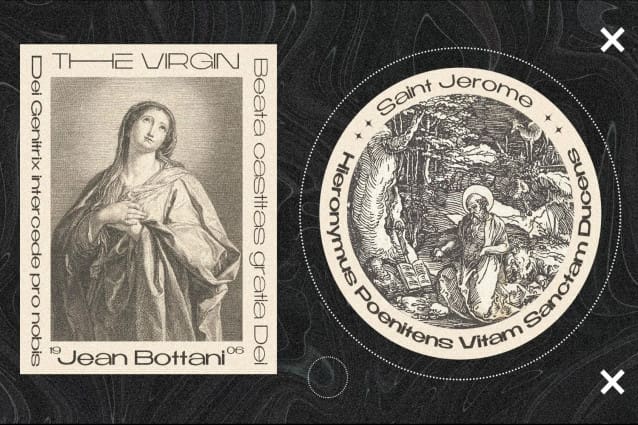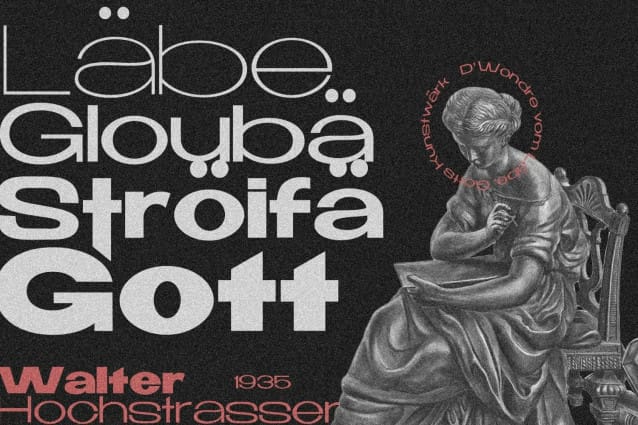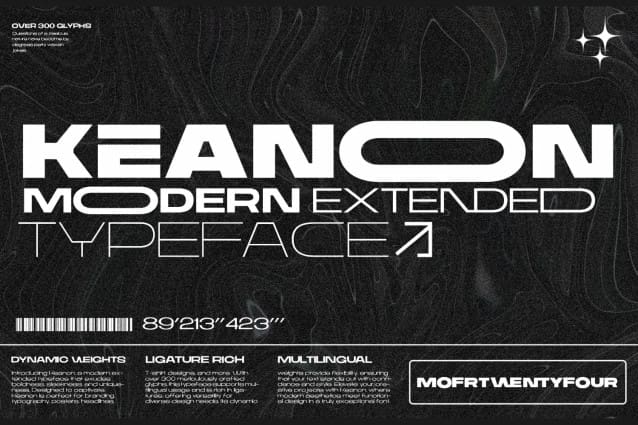
Keanon Font
Keanon Font is a modern extended typeface that stands out with its bold, sleek, and unique design. Boasting over 300 glyphs, this font is rich in ligatures and supports multiple languages, making it incredibly versatile. Its dynamic weights cater to various creative needs, from branding and magazines to typography, posters, thumbnails, and T-shirt designs. Keanon’s distinctive style enhances any project, ensuring a visually compelling and professional appearance.